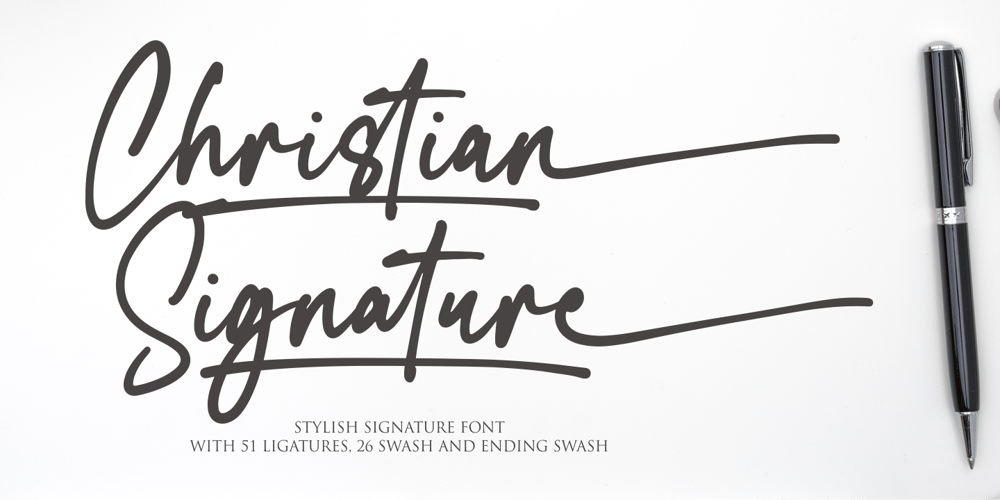
Christian Signature Font Family was designed by Siti Nurjanah and published by NJ Studio. Christian Signature contains 1 styles and family package options. Hi…Thank for your visit :)Christian Signature a stylish signature font with 51 ligatures, 26 swash and ending swash. It features ligatures characters that will take your projects to the next level!This font is PUA code which means you can easily access all the glyphs that are full of swash! It also features many special features including glyphs. font designs that are made for various vector designs, printing such as digital wedding blogs, online shops, social media, while printing can be used in the field of product clothing, accessories, bags, pins, logos, business cards, watermarks and many others …so it can make your product look swash and attractive, and also Multilingual support!!!Happy design …